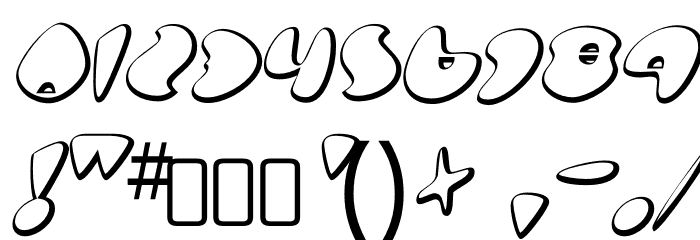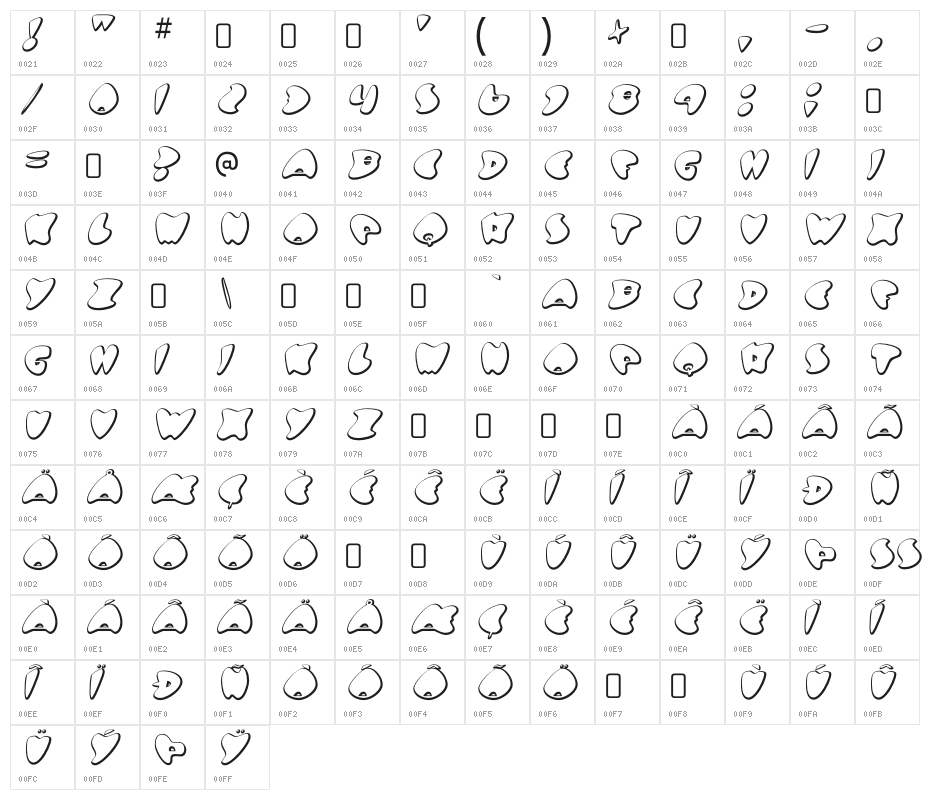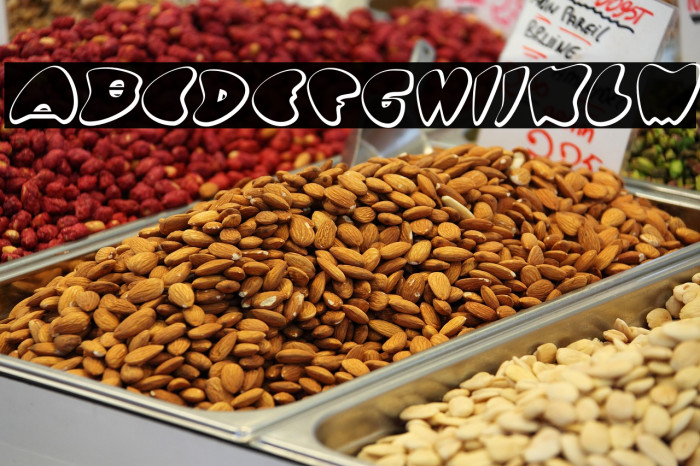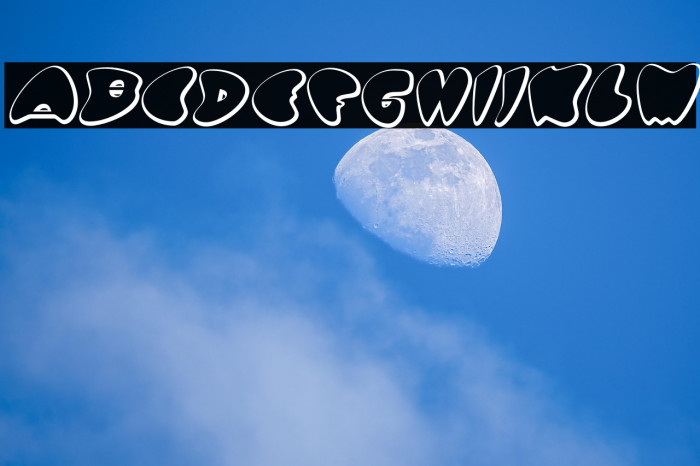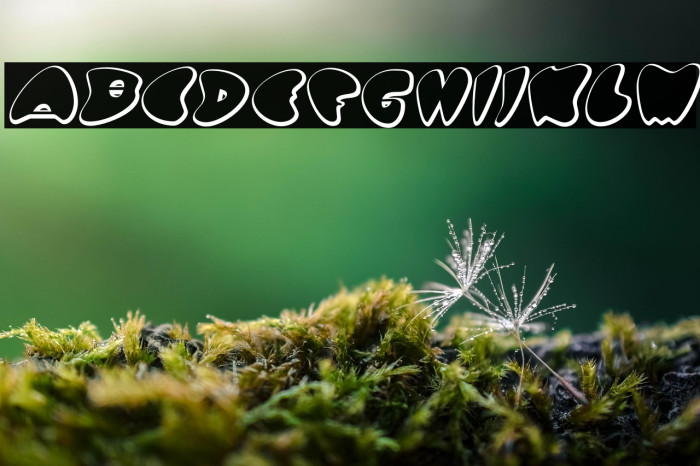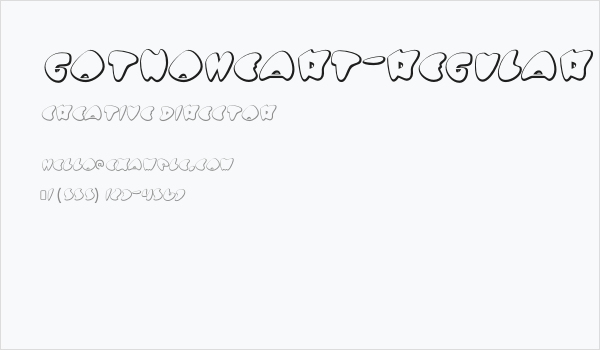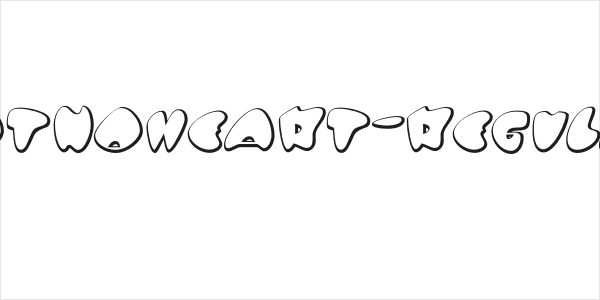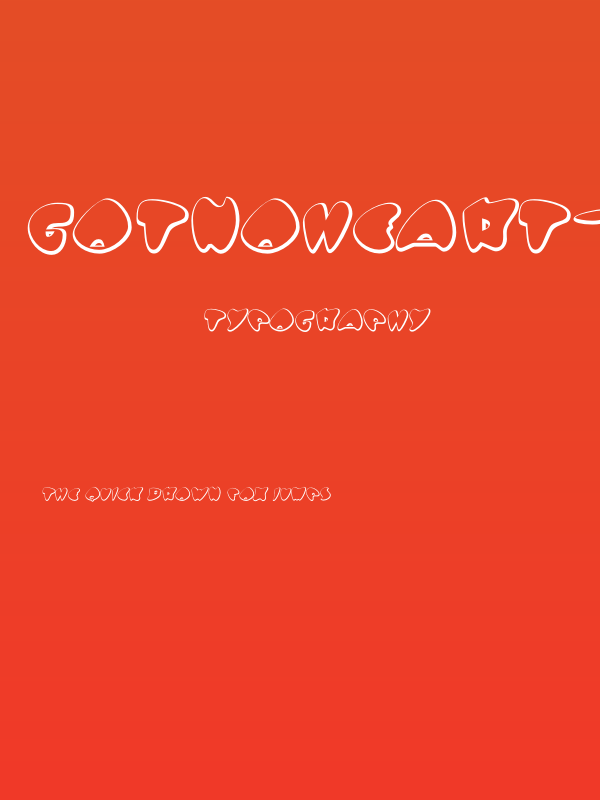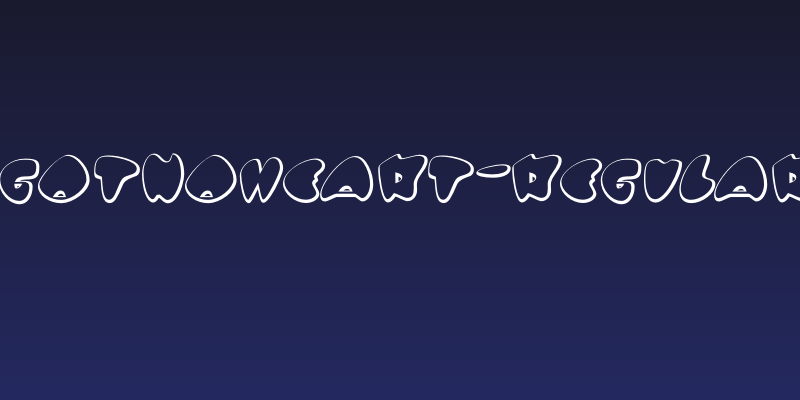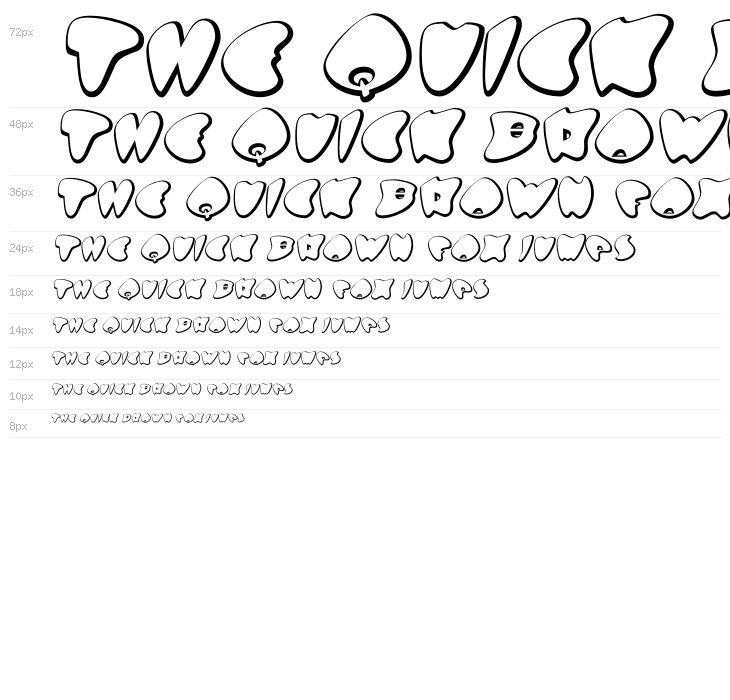
GotNoHeart-Regular Font
GotNoHeart-Regular Description
This playful and bold font features a unique bubble-like design with thick outlines and rounded edges, giving it a cartoonish and whimsical appearance. The characters are highly stylized, with exaggerated curves and a sense of movement, making them stand out with a fun and energetic vibe. The uppercase and lowercase letters maintain a consistent style, while the numbers and special characters complement the overall look with their distinct yet cohesive shapes. This font is ideal for projects that require a lively and informal touch, such as children's books, comic strips, or playful branding.
Overall StylePlayful, Whimsical
Proposed ProjectsIdeal for children's books, comic strips, playful branding, and party invitations.